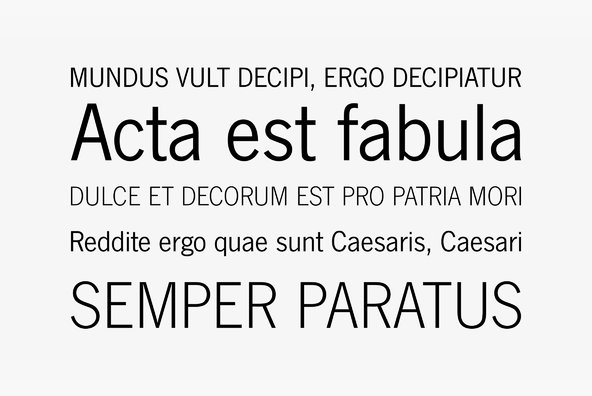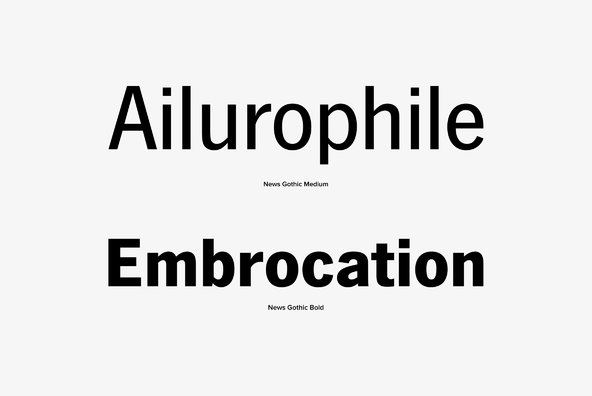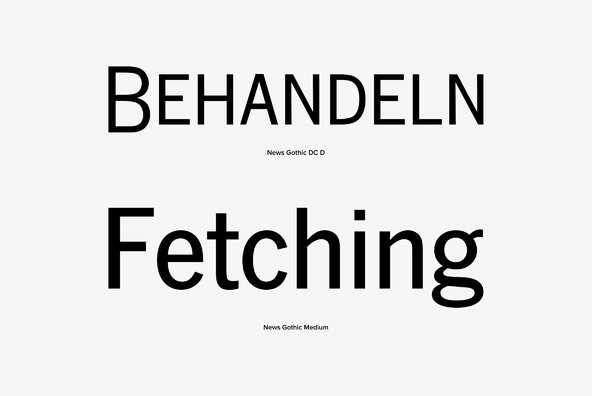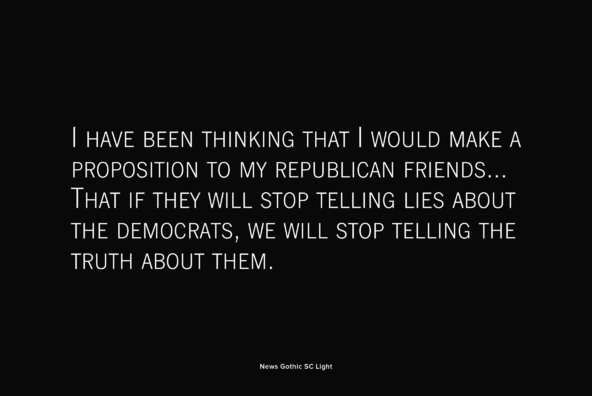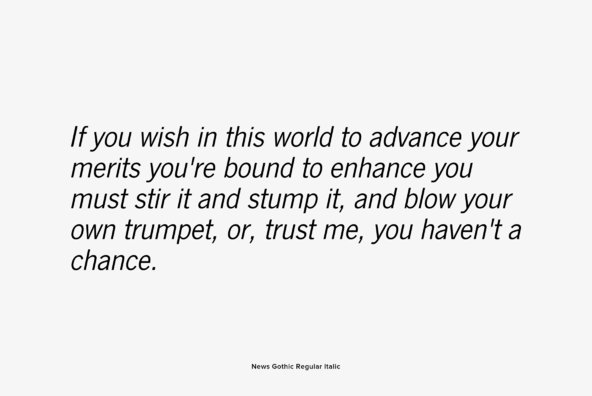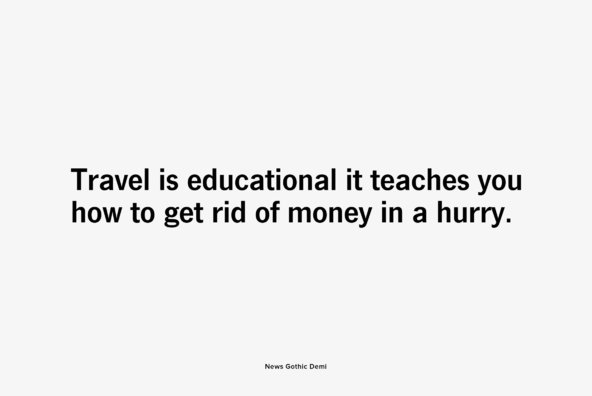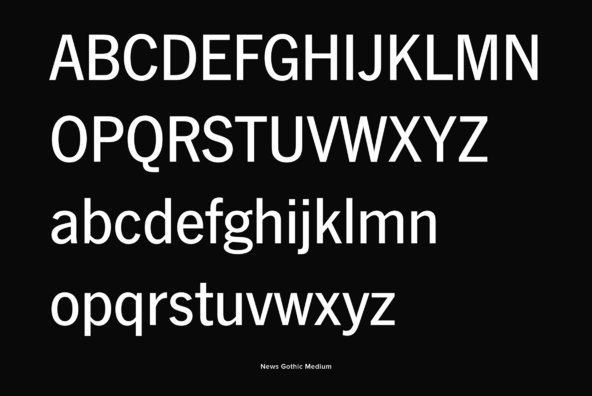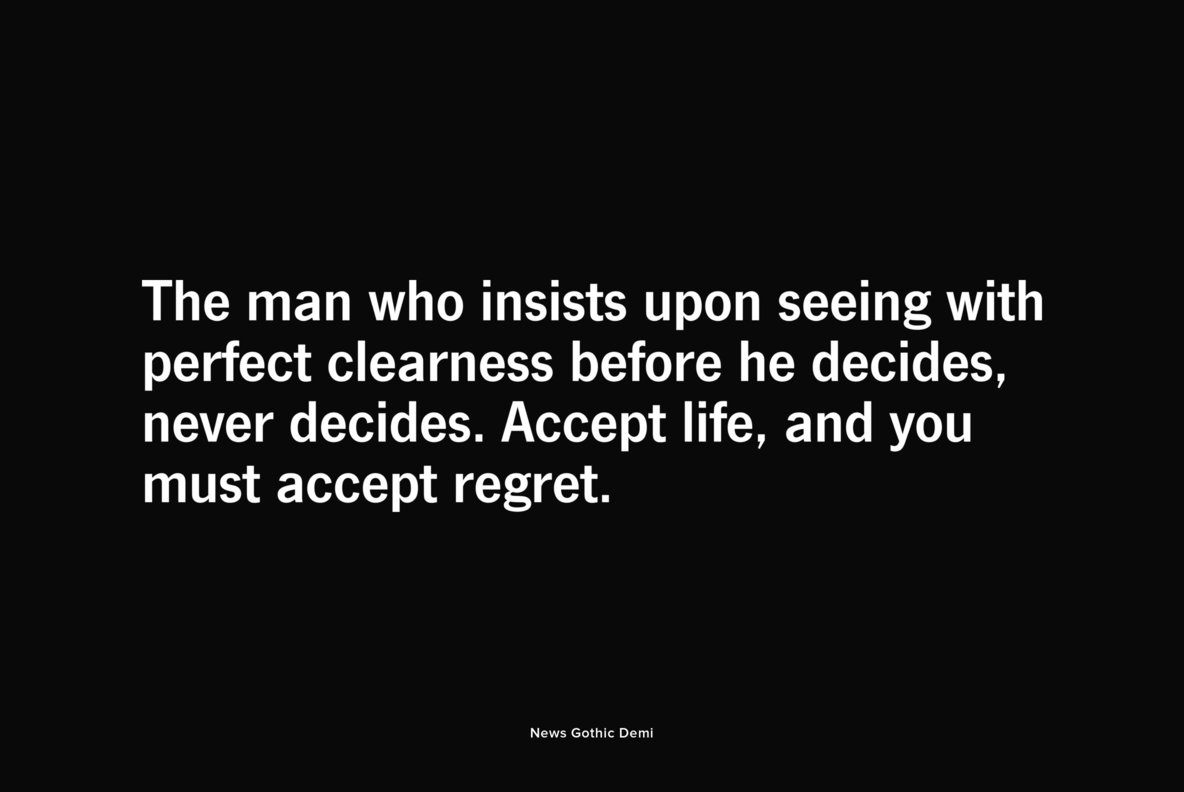
News Gothic
This is URW's digitization of the famous font News Gothic, the realist sans-serif typeface designed by Morris Fuller Benton, and released by the American Type Founders (ATF) in 1908. (News Gothic is similar in proportion and structure to Benton's famous Franklin Gothic.) The typeface differs from other realist sans-serifs with its less severe, more humanist tone. For much of the twentieth century News Gothic was used in newspaper and magazine publishing, and it is used in the logo of the Polaroid Corporation, but perhaps its most famous use was for the main body text of the Star Wars opening crawl. It was also used in Saul Bass' opening title sequence for Hitchcock's thriller, Psycho.
This font is very conservative on the surface, and it is nearly without equal in advertising and publishing situations, but when it is used in less traditional settings--fashion, art, design--it shows amazing versatility and power.